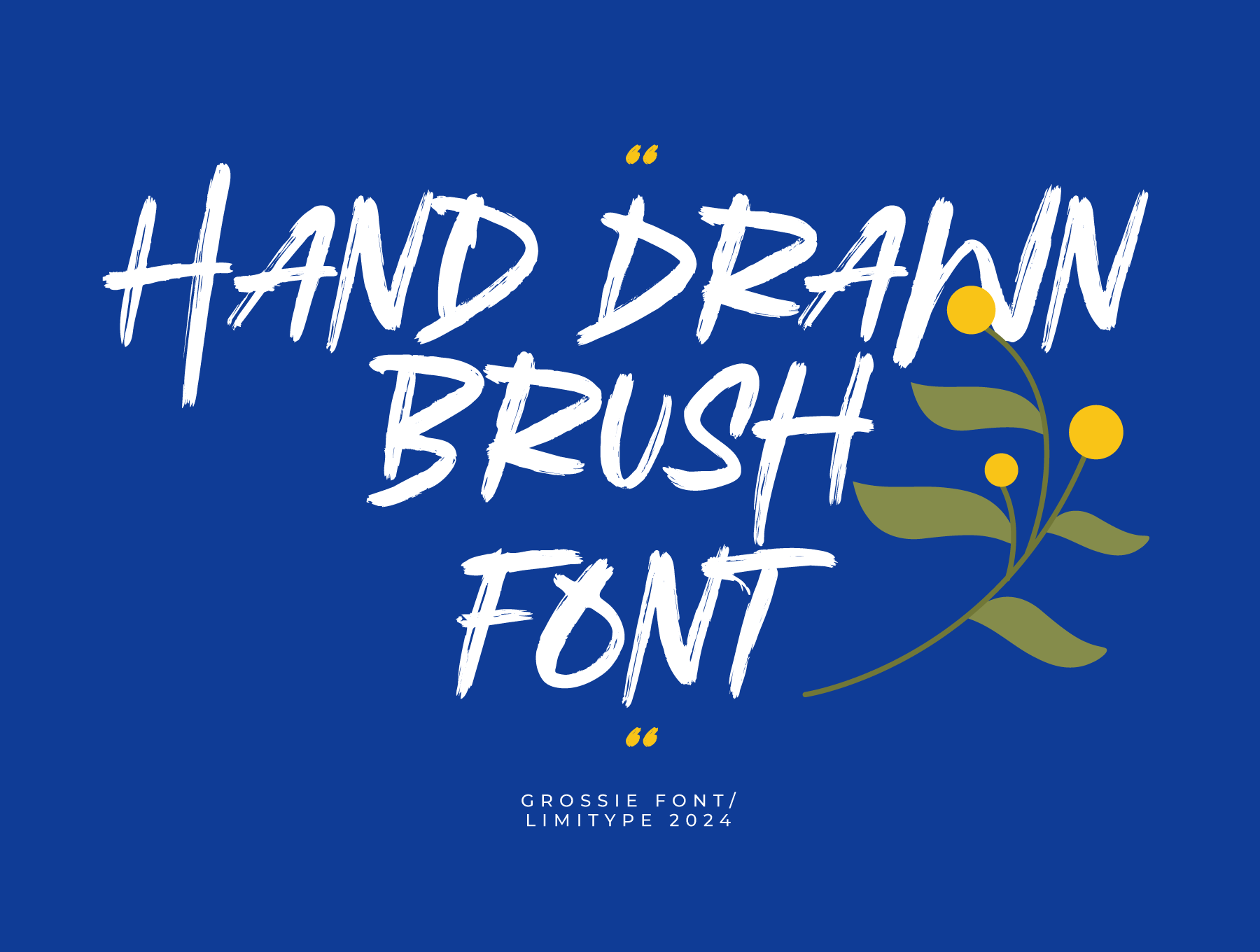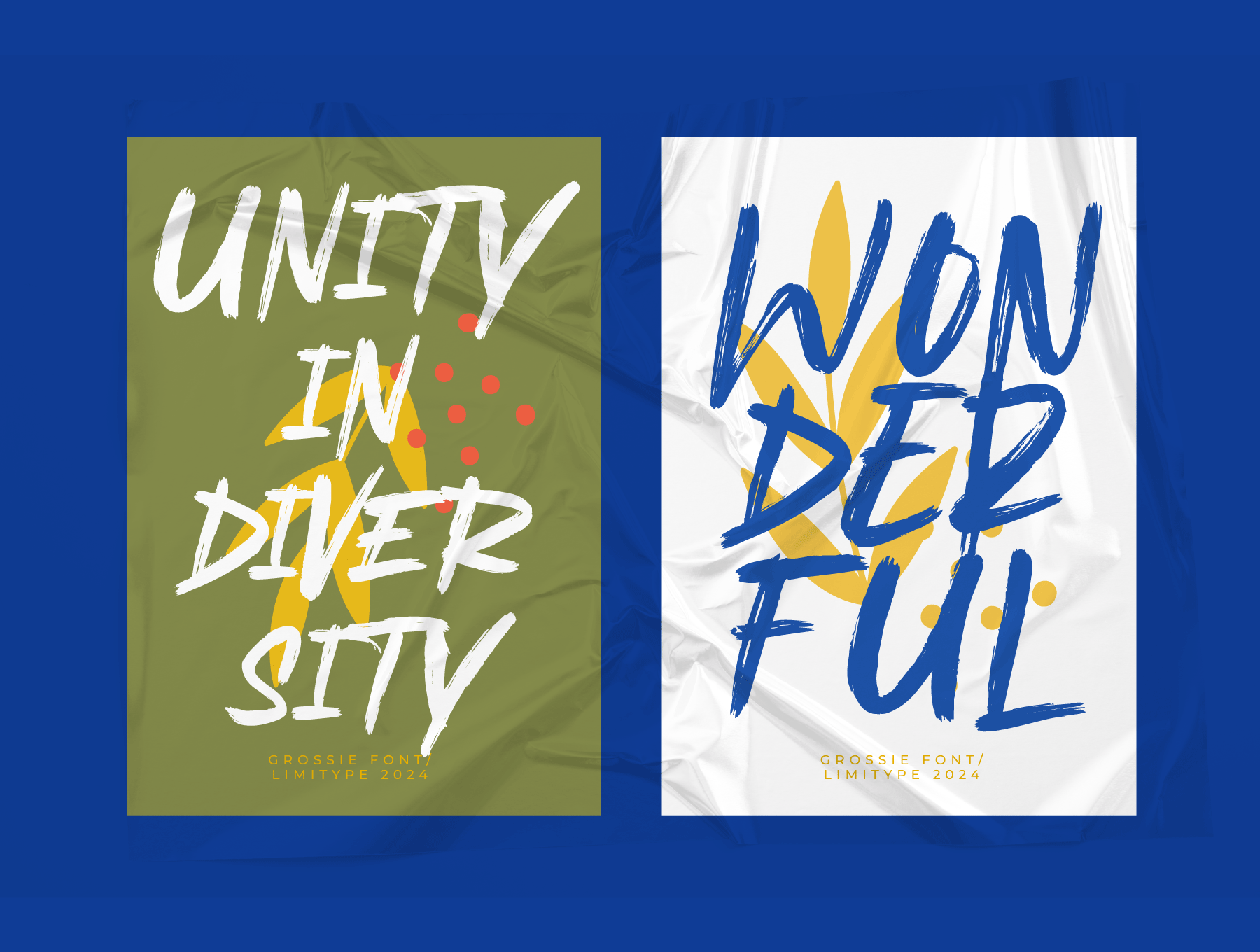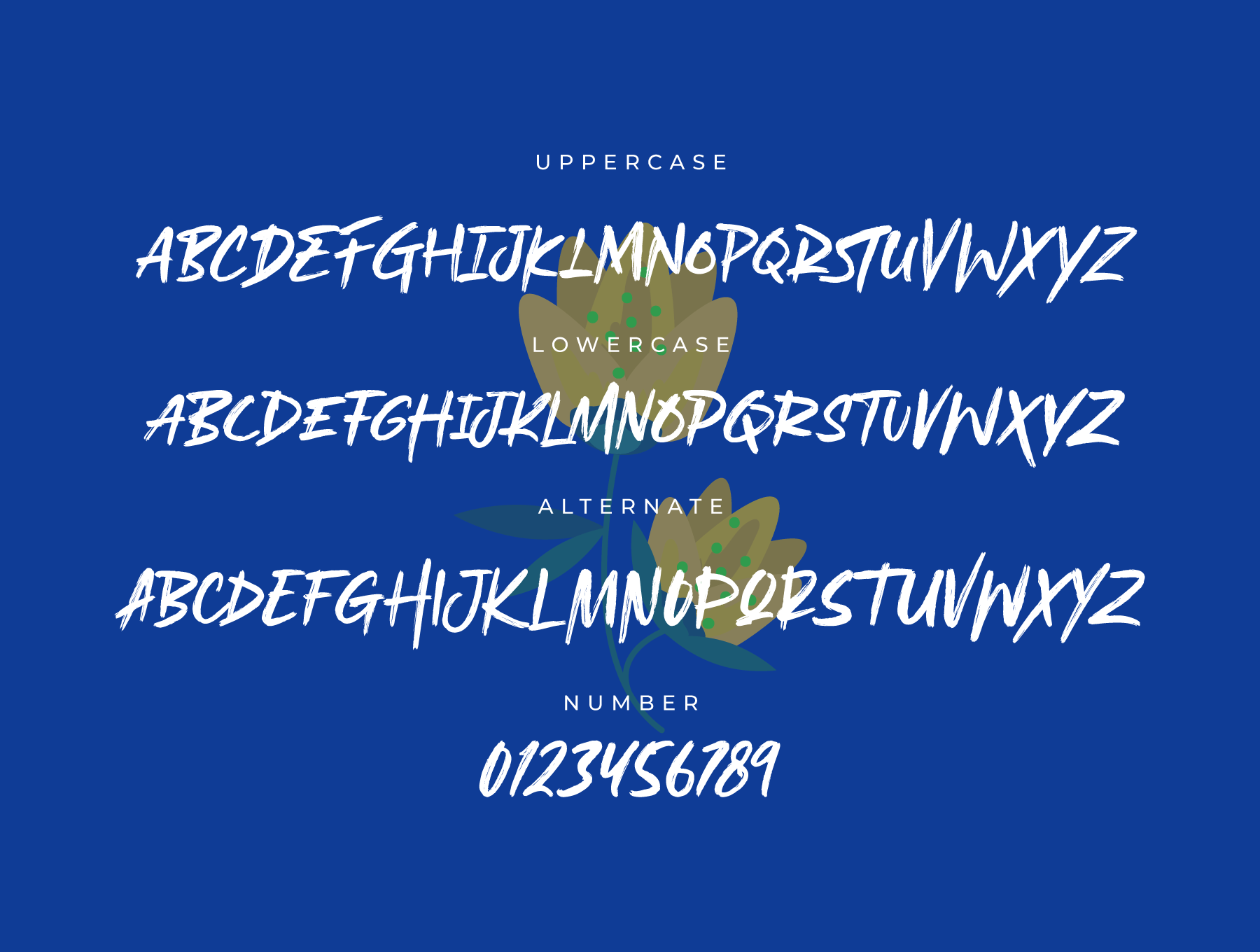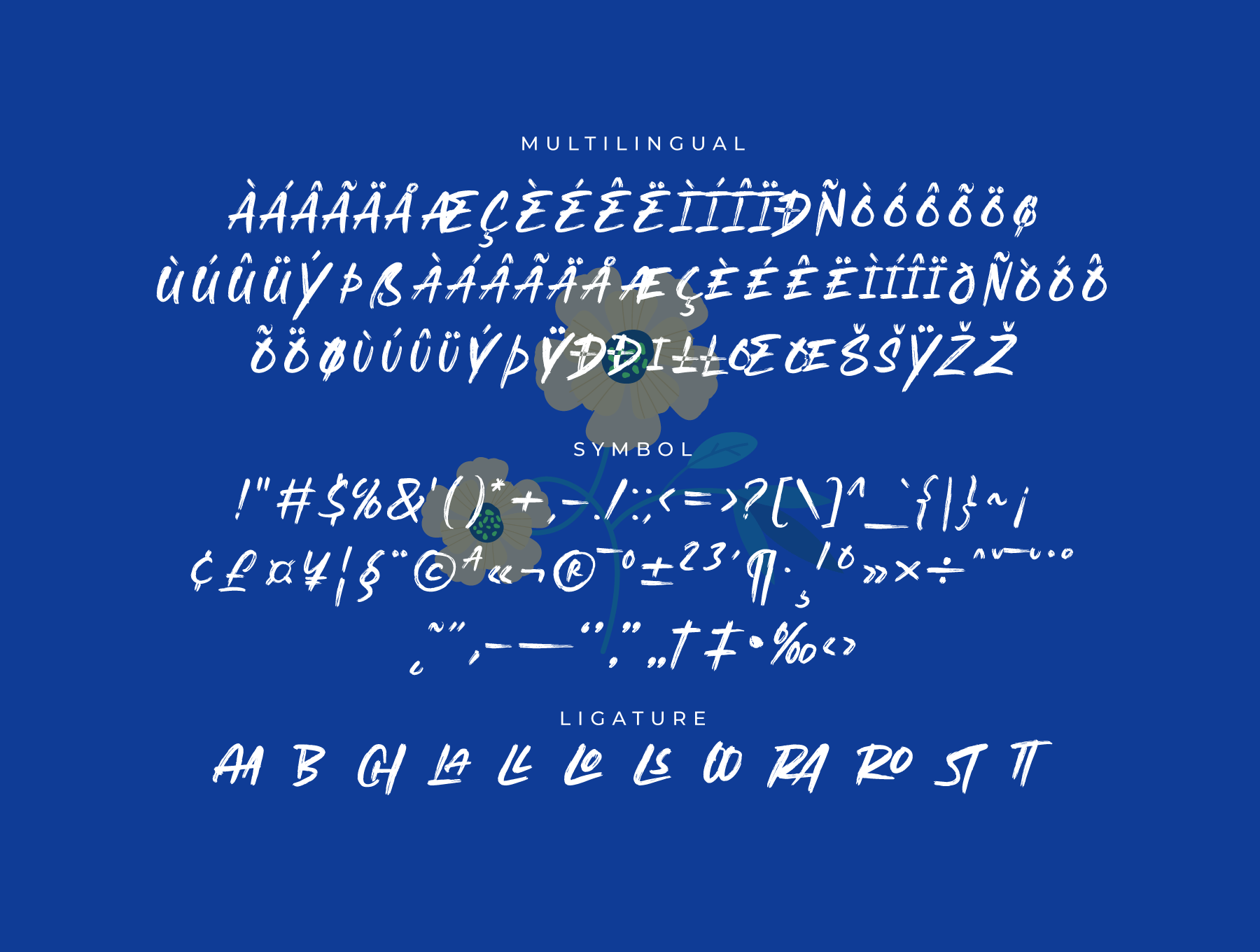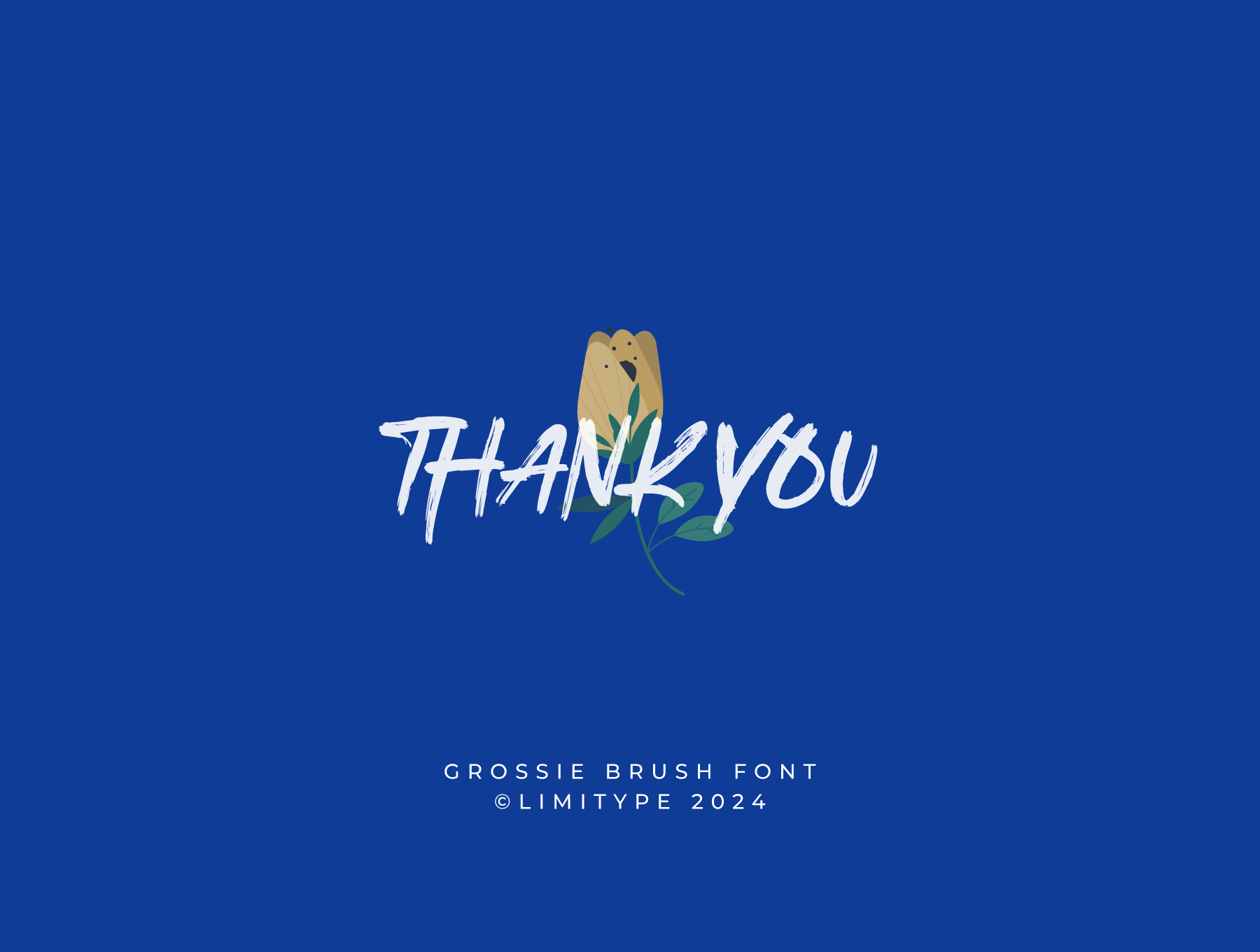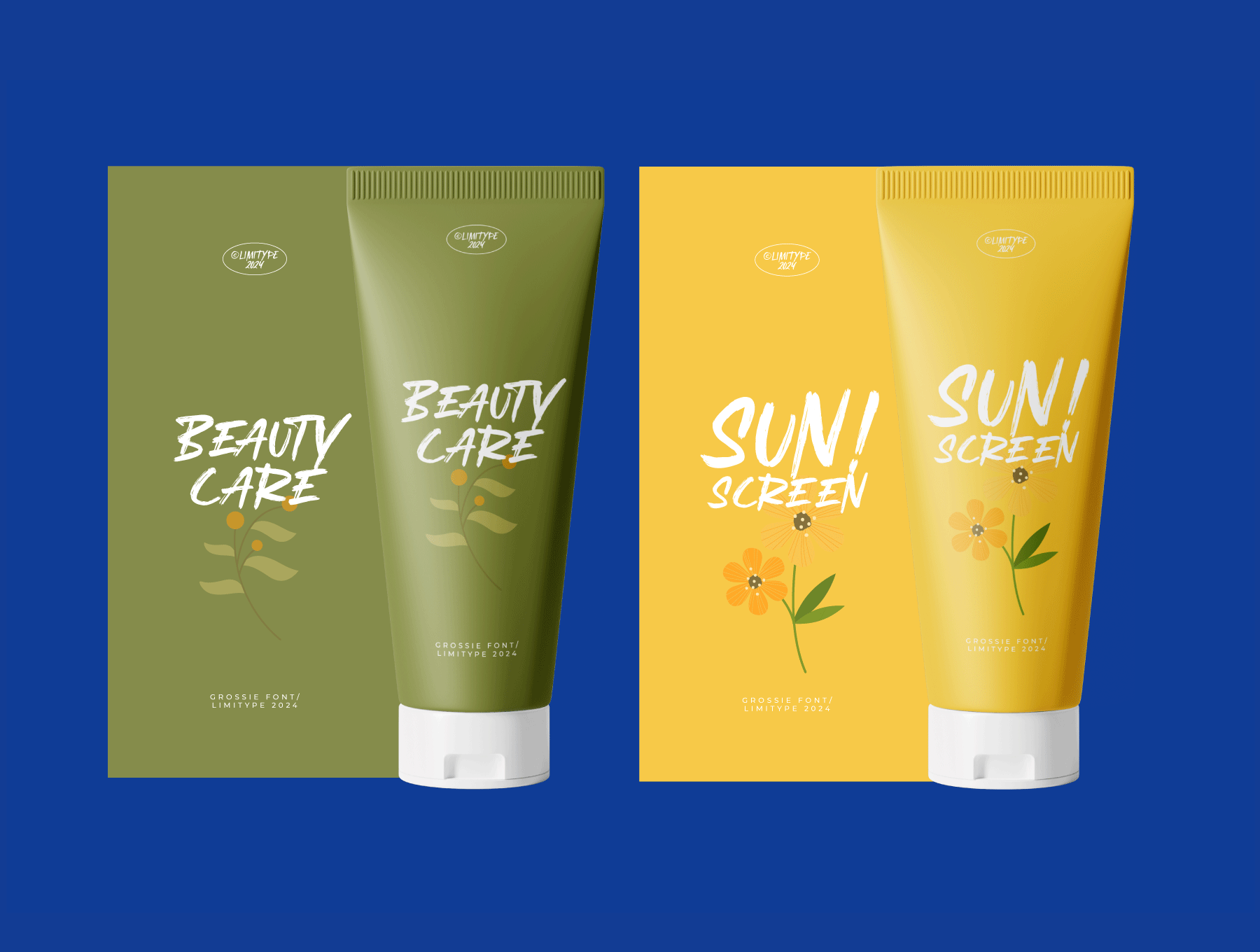
Grossie - Hand Drawn Brush Font
Grossie is a brush font made with natural hand strokes with a fun and modern impression, this font is suitable for your designs that need a playful, cheerful and fresh touch. You can apply grossie to large media such as posters, banners, magazine headlines, packaging, etc
Grossie version 1.0 is available with:
- Allcaps Font
- Numbers
- Symbols
- Alternate
- and multilingual